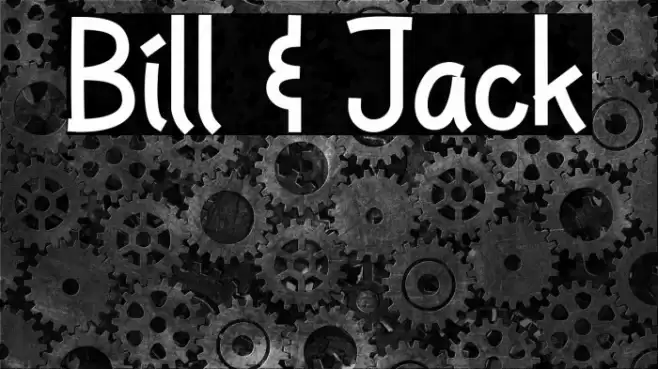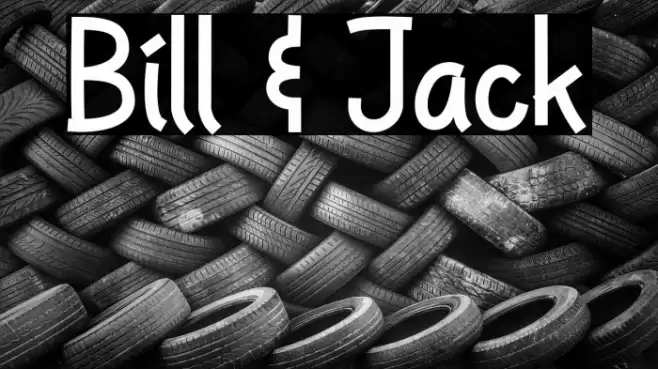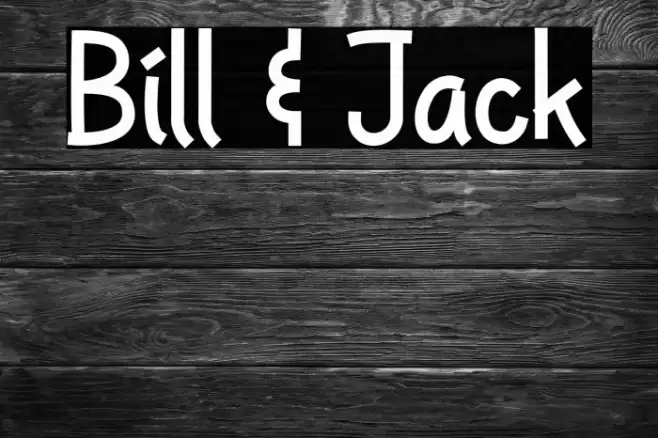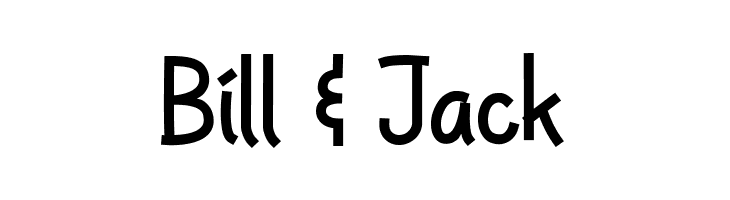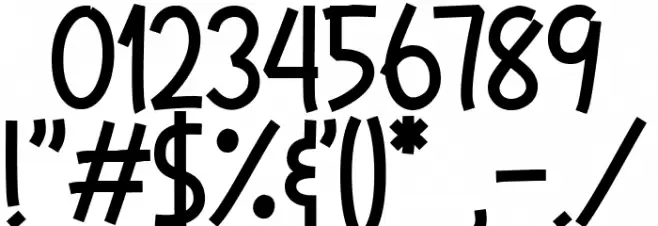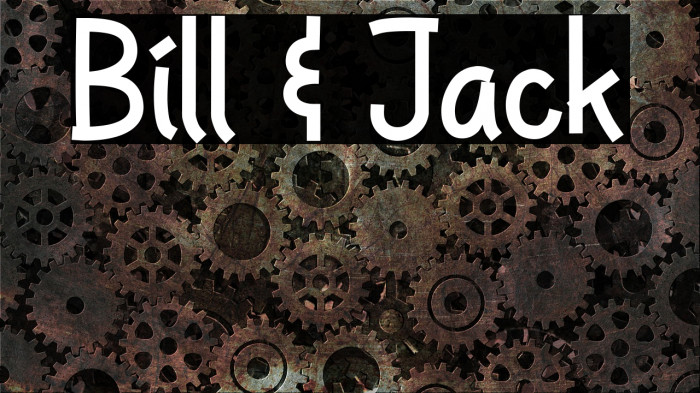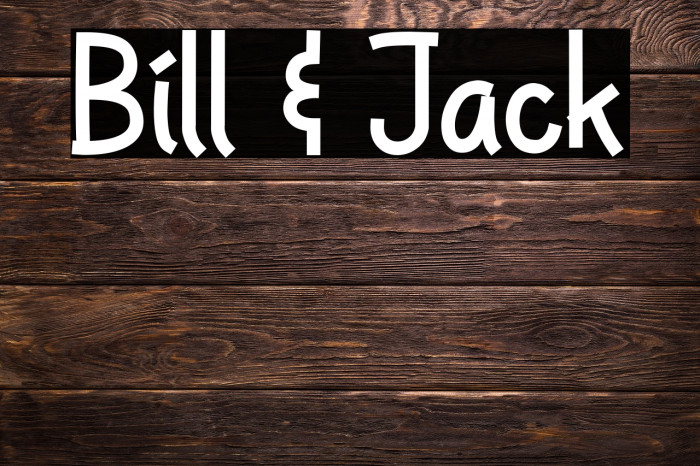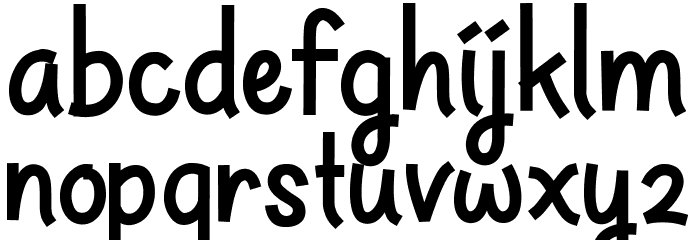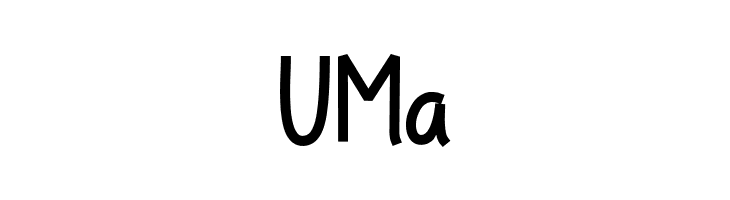
Bill & Jack Font
Bill & Jack Description
This font features a playful and informal style, characterized by its hand-drawn appearance. The uppercase letters are tall and slightly narrow, with a whimsical touch that adds a sense of fun. The lowercase letters maintain a consistent style, with rounded edges and a casual flow. The numerals are bold and easy to read, matching the playful aesthetic of the alphabet. Special characters are included, each with a unique flair that complements the overall design. This font is ideal for projects that require a lighthearted and approachable feel, such as children's books, greeting cards, or playful branding.
A playful, hand-drawn font with a whimsical and informal style from Uncategorized fonts.
- Proposed Projects: Children's books, greeting cards, playful branding, casual invitations.
- Overall Style: Playful, Informal
- Use Case: Headlines, Casual text, Branding